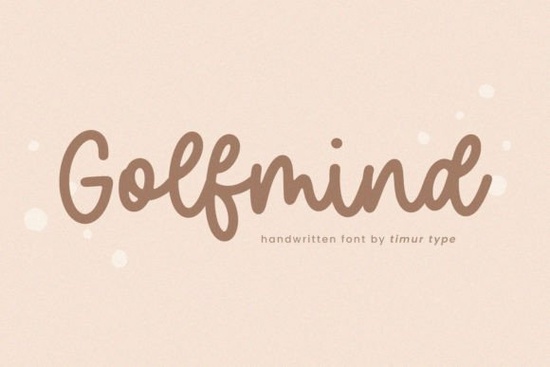
If you’ve been searching for a handwritten font that feels personal, warm, and effortlessly stylish, Golfmind might be exactly what your next project needs. It’s not flashy or overly trendy just thoughtfully crafted with clean strokes and a natural flow that works whether you’re designing wedding invites, branding a small business, or laying out social media graphics.
This font was made with care literally. The designer paid attention to how real handwriting moves across the page, so letters connect naturally and spacing feels organic. That’s why it pairs so well with product packaging or editorial layouts where you want something that doesn’t feel robotic. If you liked fonts like Shabby or Hello Andyanduo for their relaxed vibe, Golfmind will feel familiar but fresh.
What kinds of projects is Golfmind actually good for?
You don’t need to be a pro designer to make this font work. Here’s where it really shines:
- Small business branding Think boutique labels, coffee shop menus, or handmade soap packaging. Golfmind adds personality without being distracting.
- Social media quotes Overlaying text on photos? This font reads clearly even at smaller sizes and doesn’t fight with busy backgrounds.
- Wedding stationery Invitations, place cards, thank-you notes anything that benefits from a soft, human touch.
- Print-on-demand products T-shirts, mugs, tote bags if your customers like “handwritten” styles, this font converts well on physical goods.
It’s also surprisingly versatile in layout. You can use it as a display font for headlines or scale it down for short body copy (like captions or product descriptions). Just avoid long paragraphs like most script fonts, it’s meant to be savored in small doses.
How does it compare to other handwritten fonts?
If you’ve tried Quickly Replaced, you know some script fonts lean playful or exaggerated. Golfmind sits in the sweet spot legible enough for practical use but still full of character. It’s less rigid than formal calligraphy fonts and more polished than rough brush scripts.
For comparison, This Brother has a grittier, marker-style texture, while Golfmind feels smoother almost like ink pen on nice paper. That makes it a better fit for elegant or minimalist designs. No smudges, no heavy contrast just consistent, gentle curves.
A few technical notes designers appreciate:
- Includes uppercase, lowercase, numerals, and basic punctuation.
- OpenType features? Not heavily layered, but ligatures are built in for natural letter connections.
One thing to keep in mind: because it’s a single-weight font, you won’t get bold or italic variations. But that’s common with hand-drawn typefaces. You can create visual hierarchy by pairing it with a simple sans-serif (like Montserrat or Lato) for contrast.
Any tips for using Golfmind effectively?
Here’s what works best based on real user feedback:
- Give it breathing room. Don’t cram too many words together let the natural spacing do its job.
- Avoid all caps. The lowercase forms have more charm and readability.
- Use sparingly for maximum impact. A little goes a long way especially in logos or headers.
- Pair with neutral backgrounds. Busy patterns or gradients can make the delicate strokes hard to read.
Who should skip this font?
If you need something ultra-bold for billboards or signage, look elsewhere. Same if you’re after grunge textures or variable weights. Golfmind is for creators who value subtlety and warmth over loudness. It’s the font equivalent of a handwritten note tucked into a gift thoughtful, personal, quietly memorable.